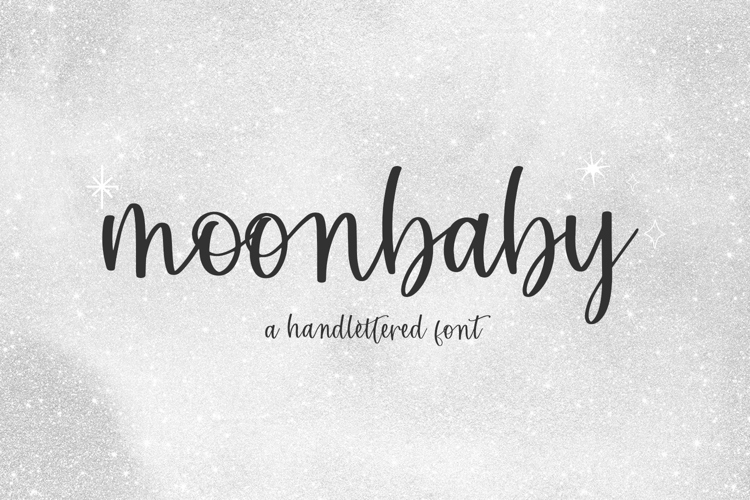
Moonbaby Script
Introducing Moonbaby, a modern calligraphy script.
- 42 ligatures - am, an, as, ax, bs, cs, ds, em, en, es, ex, ff, fs, gs, hs, im, in, is, ix, js, ks, ls, ms, ns, om, on, os, ox, ps, qs, rs, ss (x2 - standard & discretionary), th, ts, tt, us, vs, ws, xs, ys, za